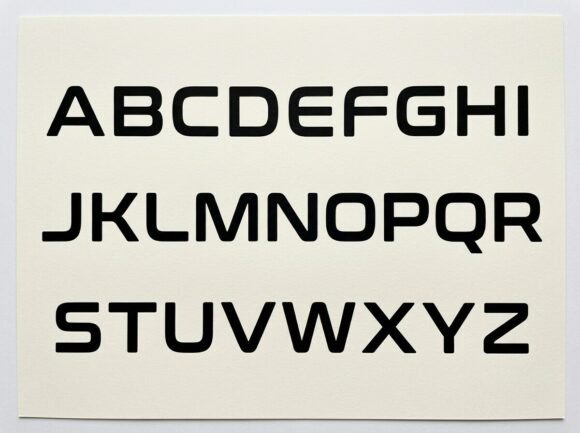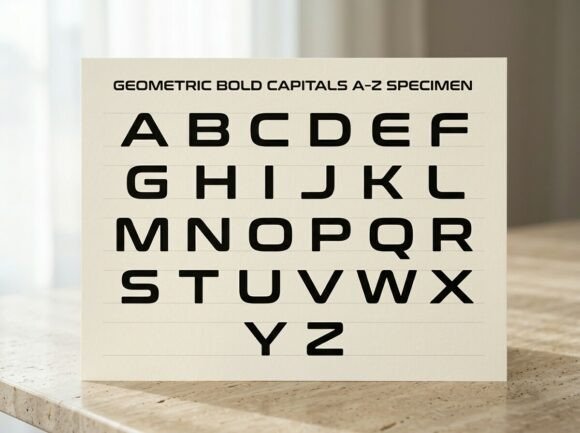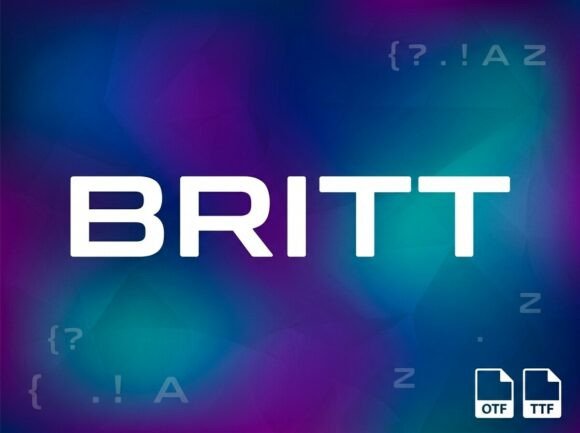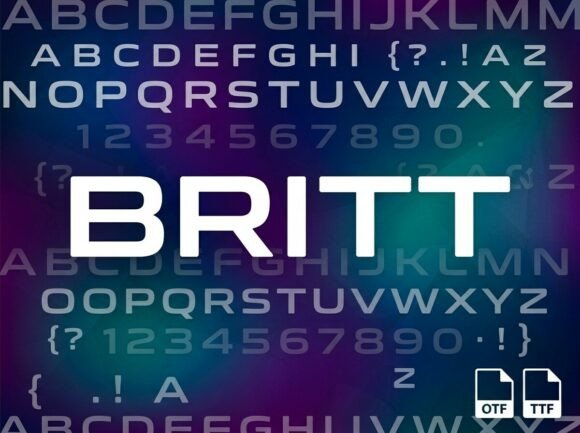
Britt Font: A Stunning Decorative Display Font for Creators
Are you tired of using the same old fonts for your designs? Look no further than the Britt Font, a stunning decorative display font that’s designed to be the center of attention. With its unique artistic elements and strong visual personality, this font is perfect for creators who want to break away from the ordinary and make a statement.
What is Britt Font?
Britt Font is a decorative display font that’s specifically designed for high-impact headlines, logos, and decorative initials. This font is an ALL-CAPS (Uppercase Only) display typeface, which means it doesn’t include lowercase letters. But don’t let that limit you – this font is perfect for creating bold, eye-catching designs that demand attention.
Key Features of Britt Font
- Unique Artistic Elements: Britt Font features unique artistic elements that set it apart from other fonts. Each letter is a work of art, making it perfect for decorative initials, logos, and headlines.
- Strong Visual Personality: This font has a strong visual personality that’s sure to make your designs stand out. Whether you’re creating a bold headline or a stylish logo, Britt Font is the perfect choice.
- Versatile: Britt Font is versatile enough for a variety of design applications, including bold headlines, artistic logos, and creative packaging.
- Professional and Polished Finish: Despite its decorative nature, Britt Font maintains a professional and polished finish, making it perfect for designers who want to create high-quality designs.
Why Choose Britt Font?
There are many reasons why you should choose Britt Font for your design projects. Here are just a few:
- Stand Out from the Crowd: With Britt Font, you can create designs that stand out from the crowd. This font is unique and eye-catching, making it perfect for designers who want to make a statement.
- Perfect for a Variety of Design Applications: Britt Font is versatile enough for a variety of design applications, including headlines, logos, packaging, and more.
How to Use Britt Font
Using Britt Font is easy. Here are a few tips to get you started:
- Use it for Headlines: Britt Font is perfect for creating bold, eye-catching headlines. Use it to draw attention to your designs and make a statement.
- Create Unique Logos: With its unique artistic elements, Britt Font is perfect for creating unique logos that stand out from the crowd.
- Add a Decorative Touch: Use Britt Font to add a decorative touch to your designs. It’s perfect for creating decorative initials, titles, and more.
Britt Font is a stunning decorative display font that’s perfect for creators who want to break away from the ordinary. With its unique artistic elements, strong visual personality, and versatility, this font is perfect for a variety of design applications. Whether you’re creating bold headlines, artistic logos, or creative packaging, Britt Font is the perfect choice. So why wait? Download Britt Font today and start creating designs that stand out from the crowd.